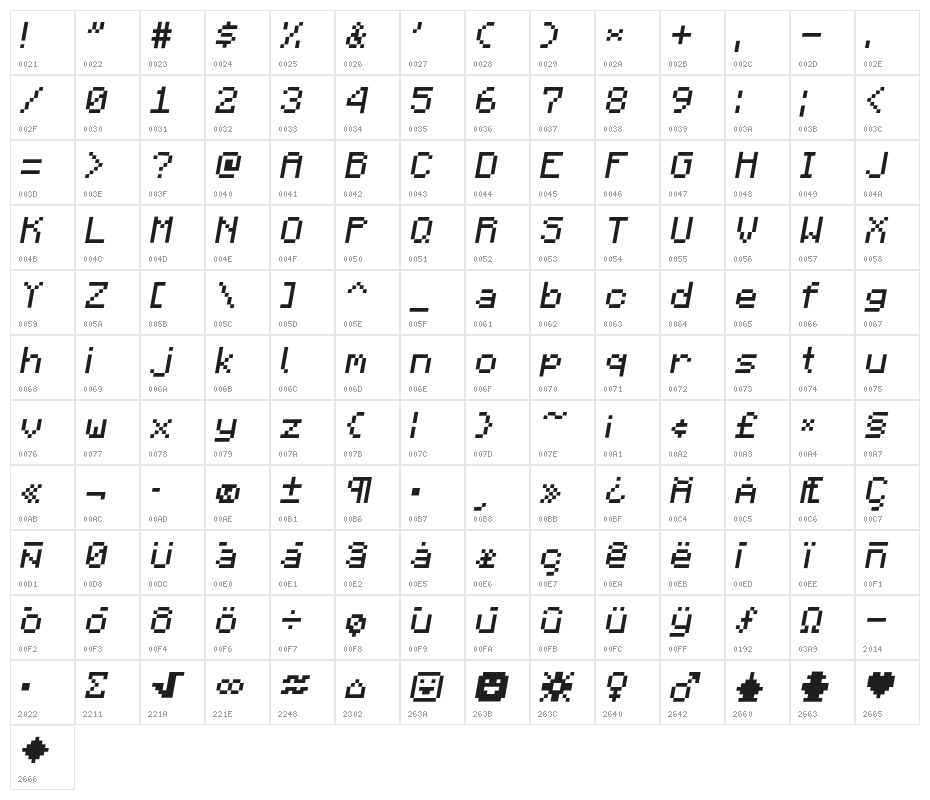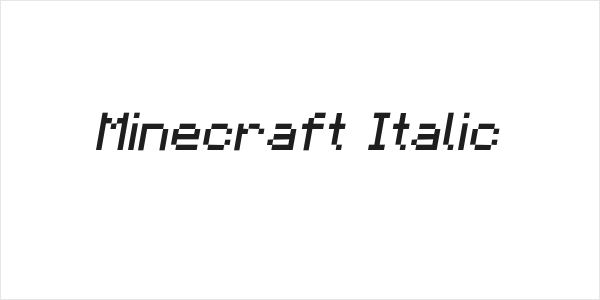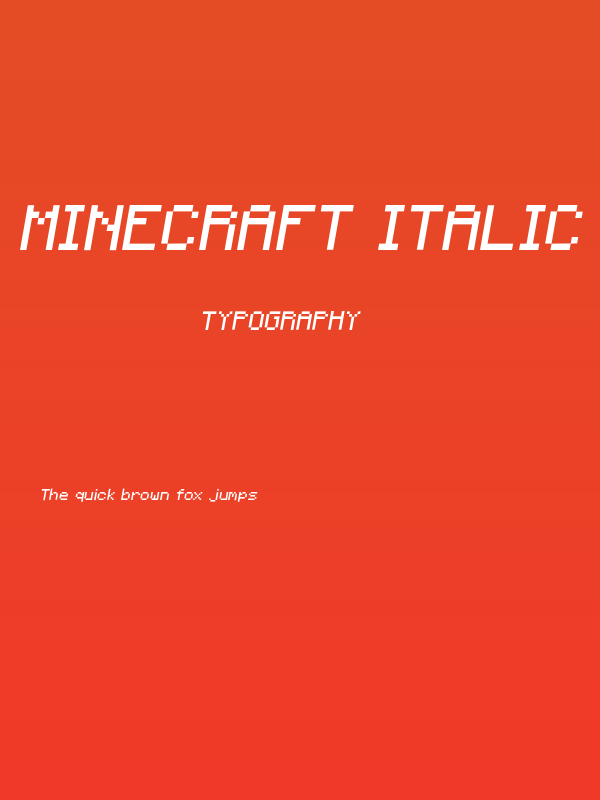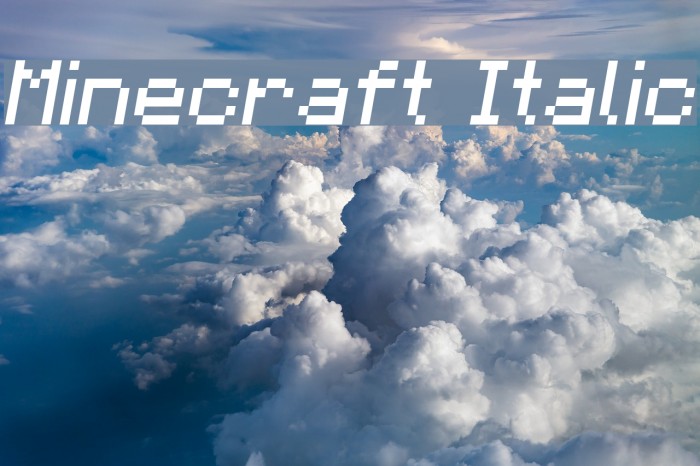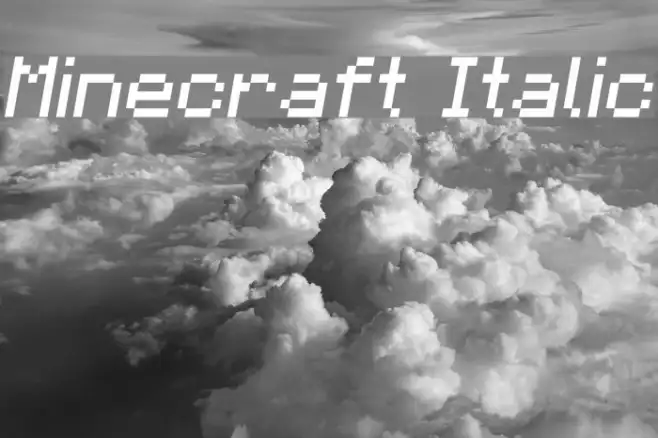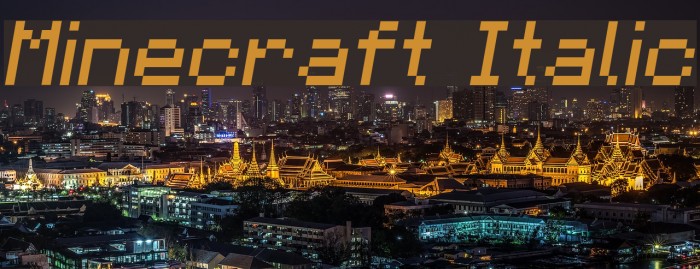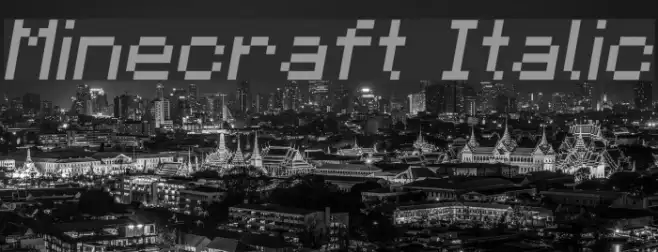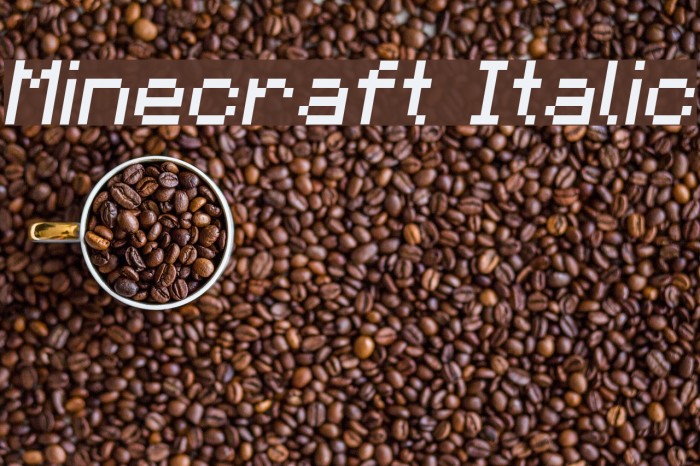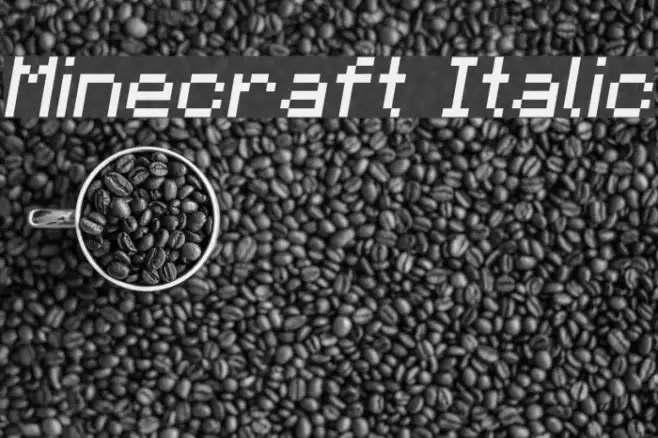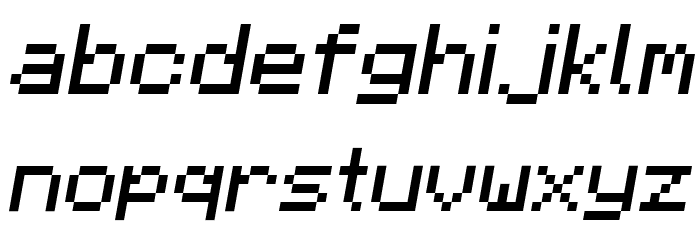
Minecraft Italic Font
Minecraft Italic Description
This font features a pixelated, blocky style that is reminiscent of classic video game graphics. The characters are composed of sharp, angular lines with a consistent grid-like structure, giving it a distinctly digital appearance. The italic slant adds a dynamic and modern twist to the otherwise retro aesthetic. Each letter and number is clearly defined, ensuring legibility even at smaller sizes. The special characters maintain the same pixelated design, seamlessly integrating with the rest of the character set. This font is ideal for projects that aim to evoke a sense of nostalgia or to create a playful, tech-inspired look.
| Use Case | Headlines, Logos, Digital Art |
| Proposed Projects | Ideal for video game designs, retro-themed posters, digital art, and tech-related branding. |